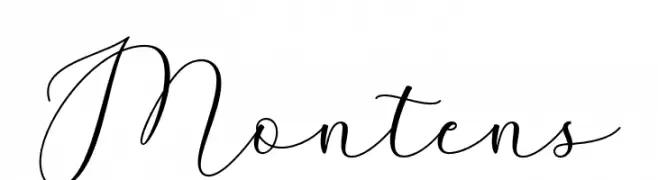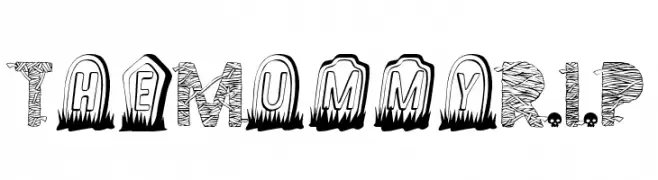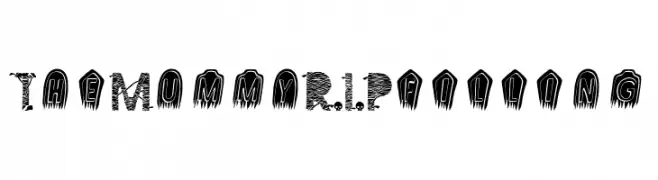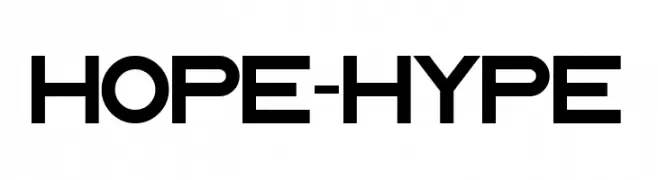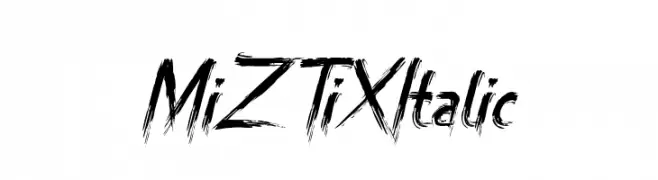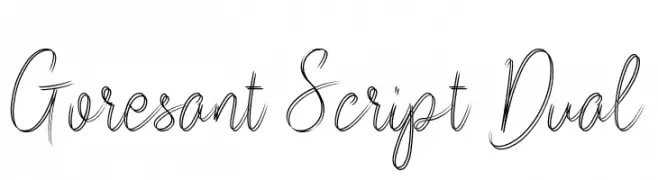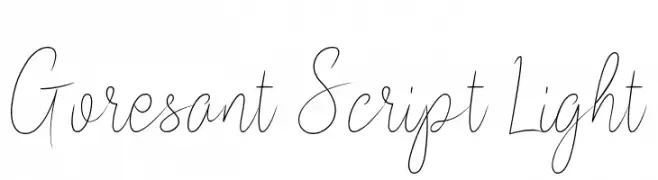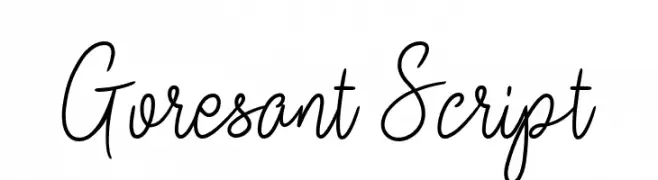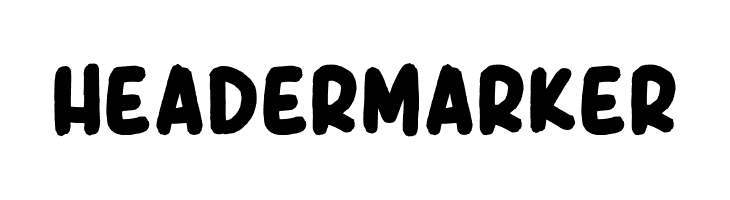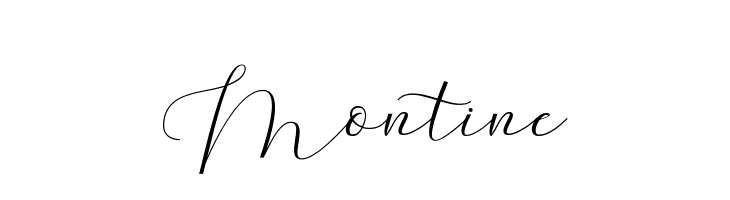
A graceful script font with flowing, cursive strokes and elegant design.
A spooky, mummy-themed font with textured uppercase and tombstone-encased lowercase letters.
A spooky, mummy-themed decorative font with a textured, layered design.
A dynamic and flowing script font with a modern twist.
A bold, geometric sans-serif font with a modern and clean design.
A bold, brushstroke-style font with a raw, artistic appearance.
A dynamic, brush-stroke italic font with a modern and edgy appearance.
A dynamic and fluid script font with elegant, flowing letterforms.
A graceful and elegant script font with flowing, connected strokes.
A flowing, cursive script font with elegant loops and swashes.